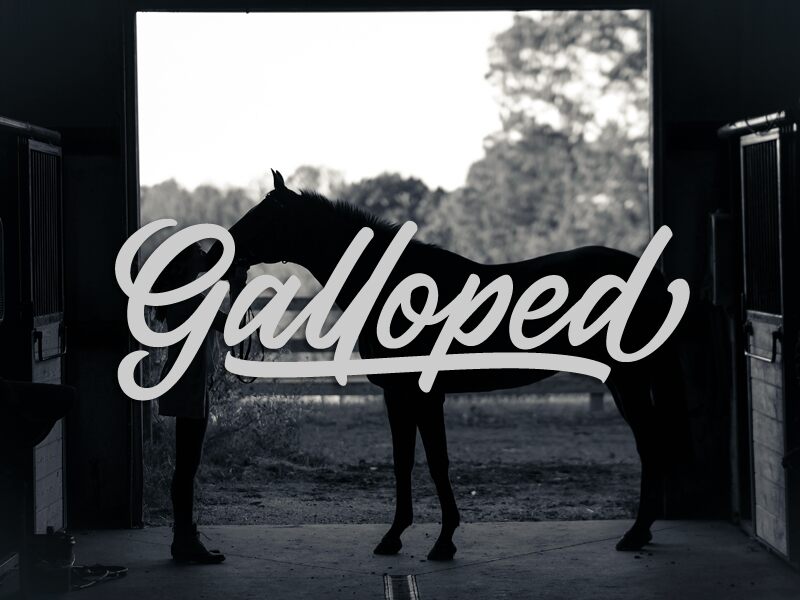
Galloped, the beautifully crafted semi-light handwritten font, is the perfect addition to any creative project. Designed by Ali Hamidi, Galloped boasts a unique style that captures the essence of elegance and sophistication. Its delicate curves and strokes make it ideal for use in invitations, greeting cards, and wedding stationery. Galloped also works wonders for headlines and titles on blog posts and magazines due to its readability and clarity. With its versatile nature, this font can suit a wide range of design projects, from branding to packaging design. Make your project stand out with this stunning semi-light handwritten font - Galloped!
Galloped